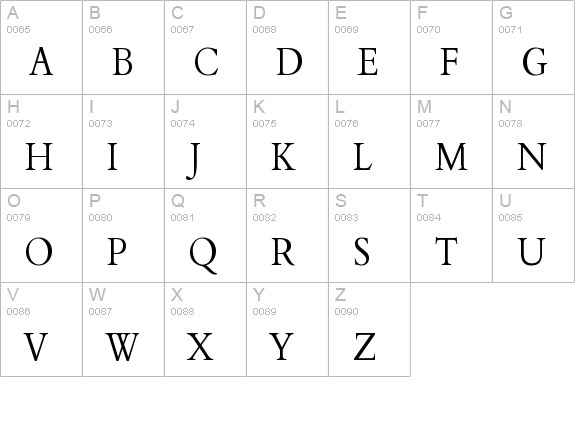
Nadine 2 Condensed Normal is the standard, neutral, condensed-width variant in the Nadine typeface family \xE2\x80\x94 well suited to general body text, paragraphs, and standard typographic work.
Nadine 2 Condensed Normal font is a sleek and modern typeface that exudes elegance and sophistication. With its clean lines and stylish design, this font is perfect for a wide range of projects, from branding to editorial design. The condensed style adds a touch of professionalism, making it ideal for corporate materials and marketing collateral. What sets Nadine 2 Condensed Normal font apart is that it is available for free download at FontsMarket.com. This means you can access this high-quality font without having to spend a penny. Whether you're a designer looking to elevate your projects or a business owner in need of a polished font for your branding efforts, Nadine 2 Condensed Normal font is a fantastic choice that won't break the bank. Download it today and take your designs to the next level!